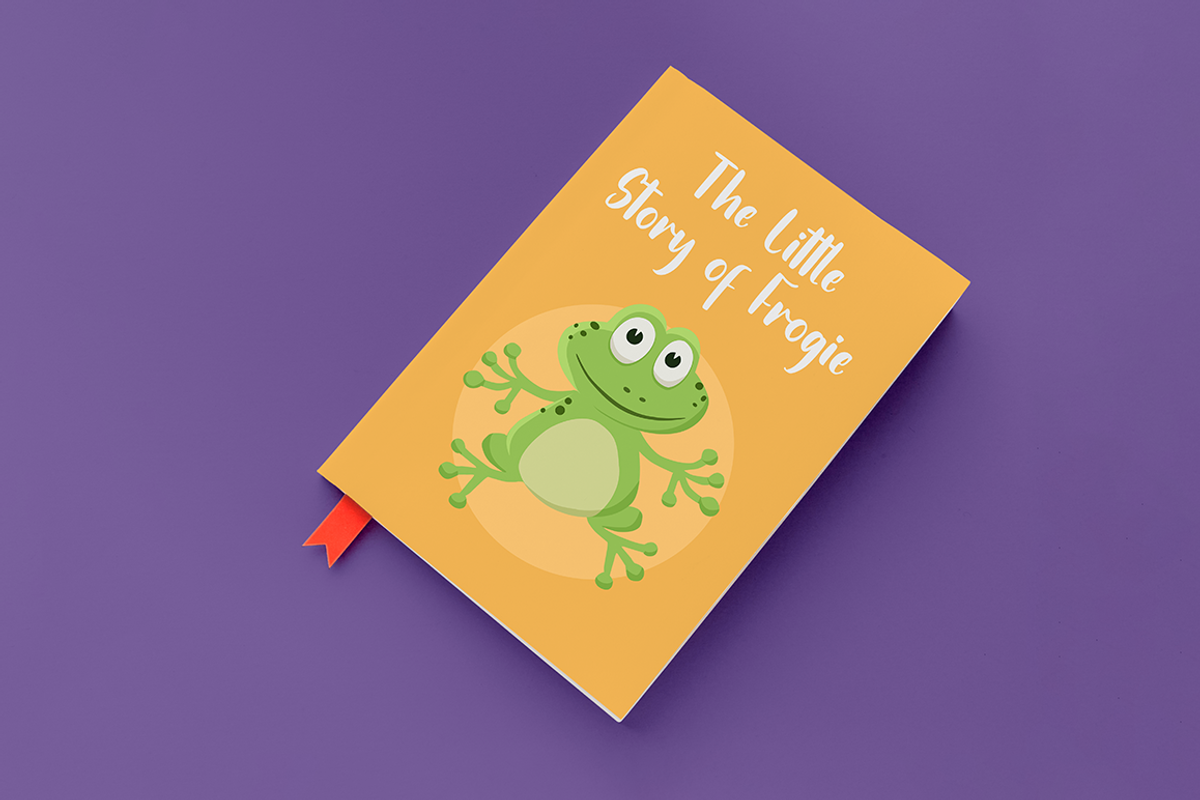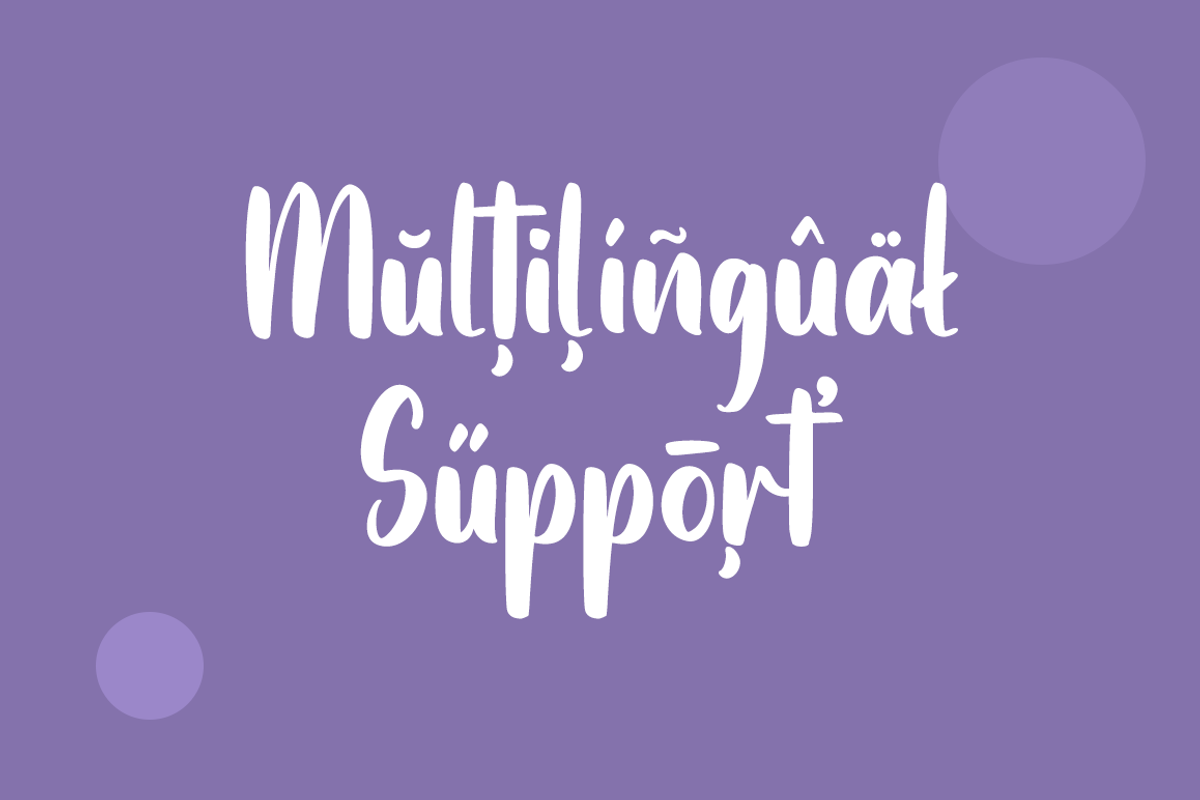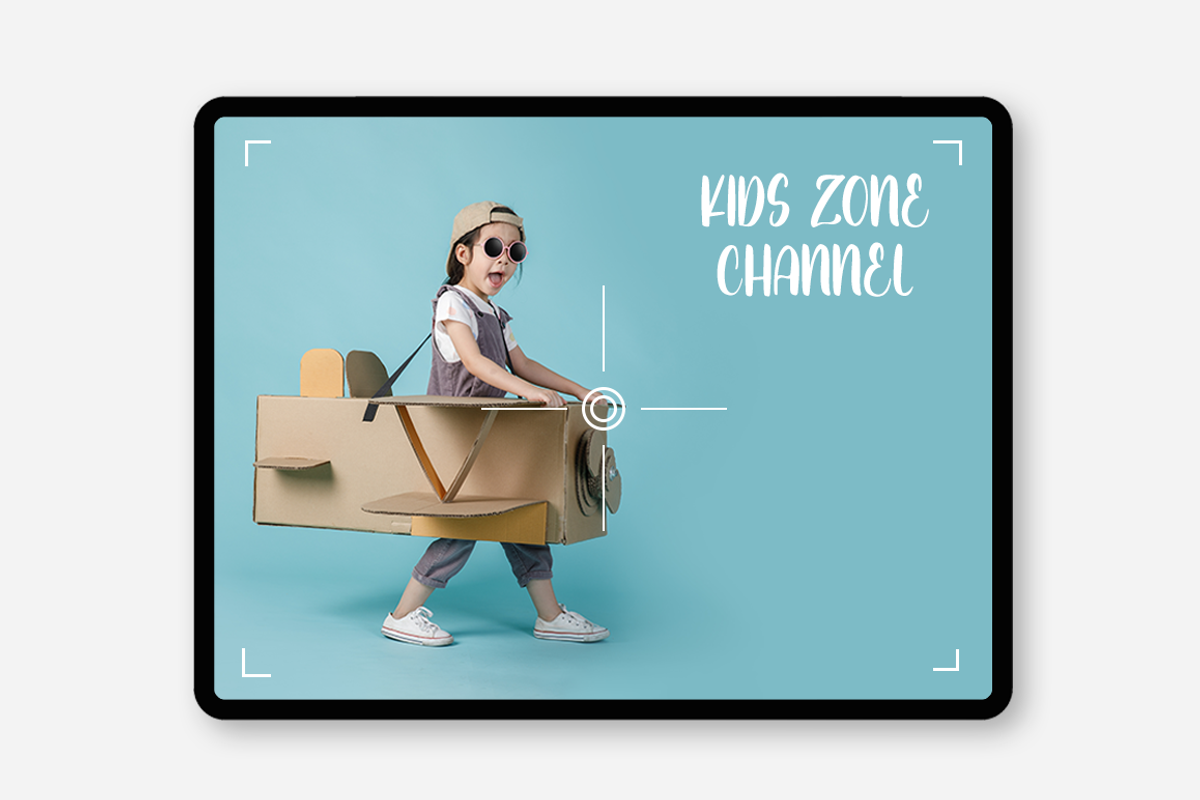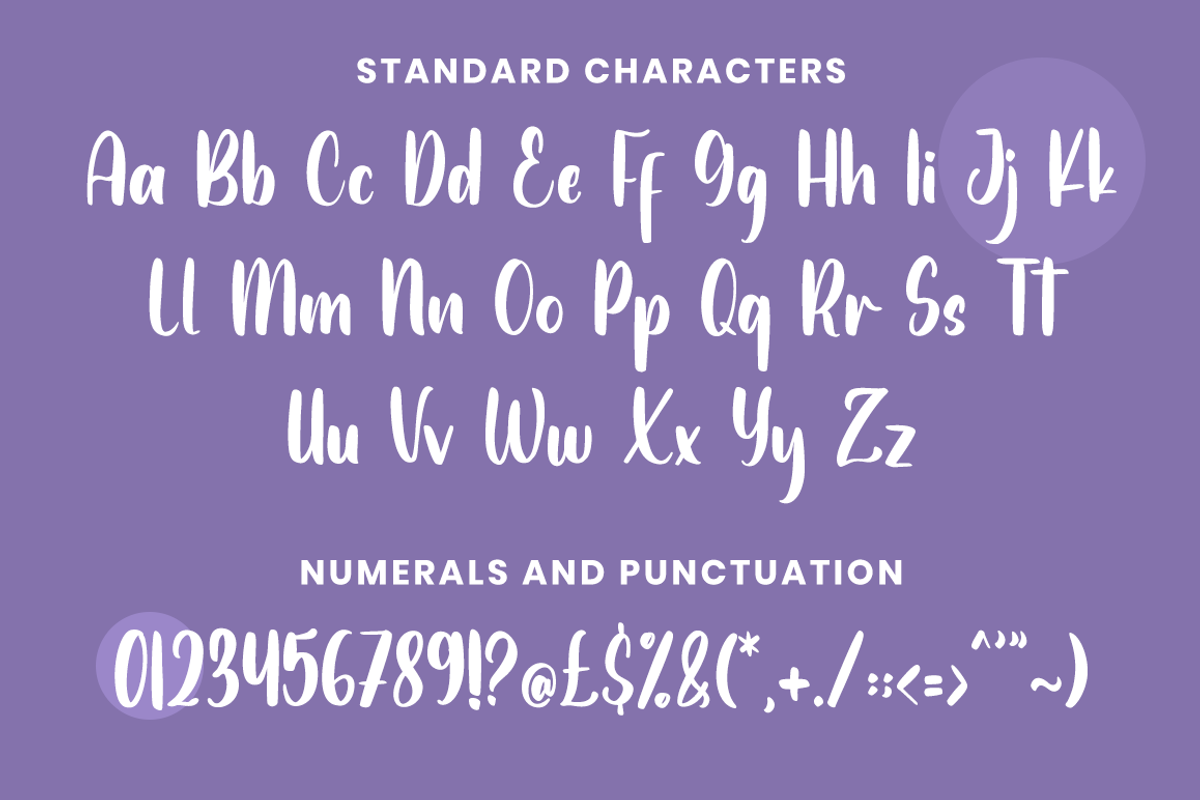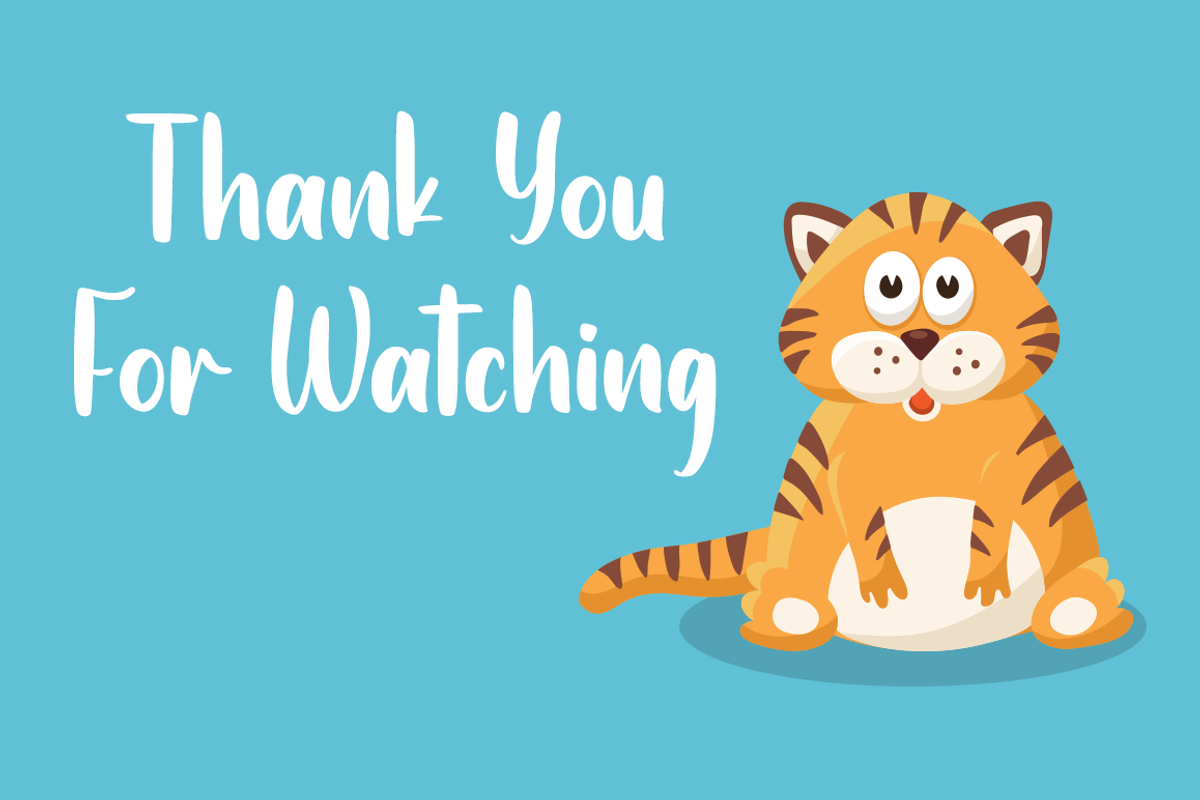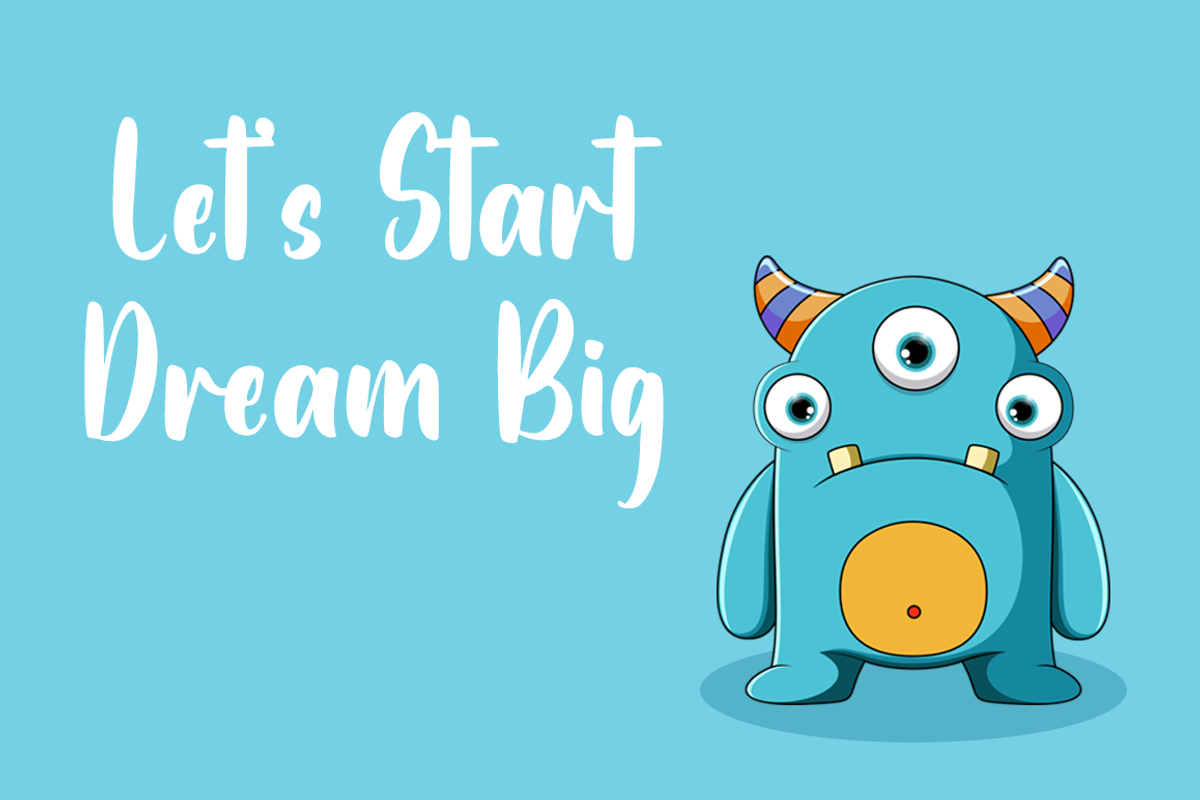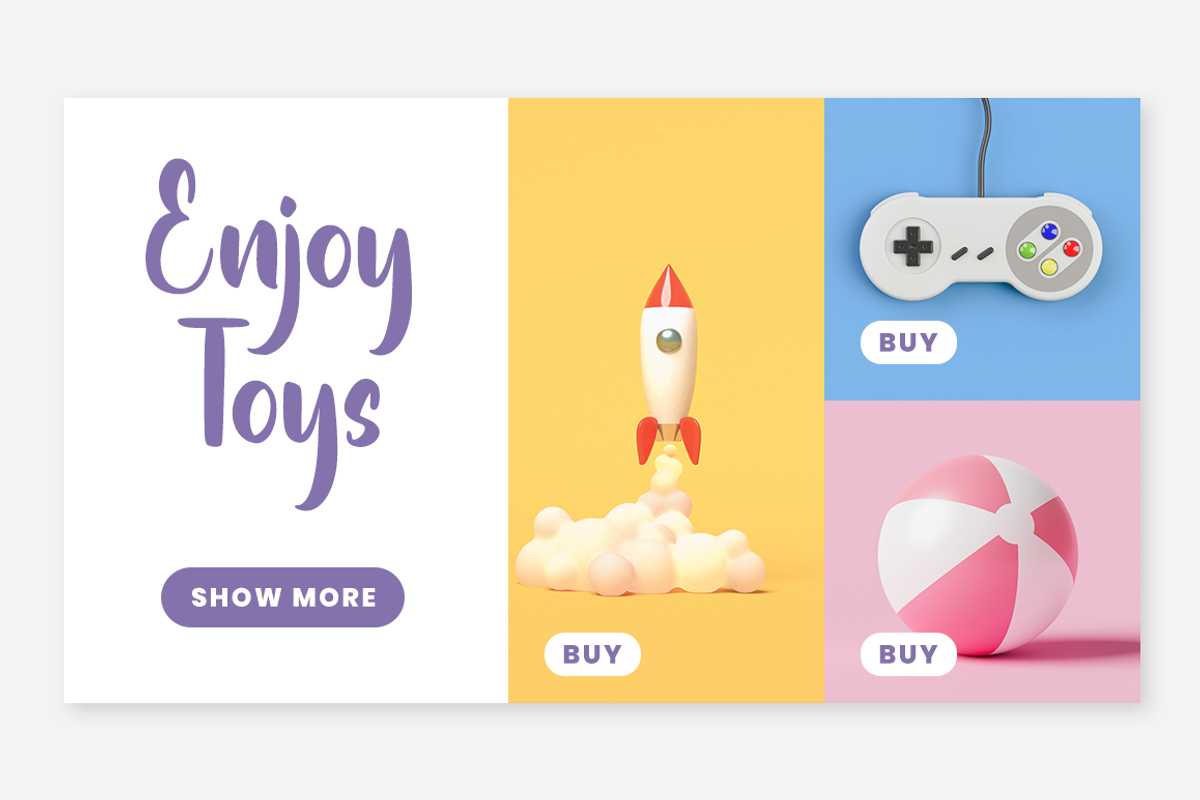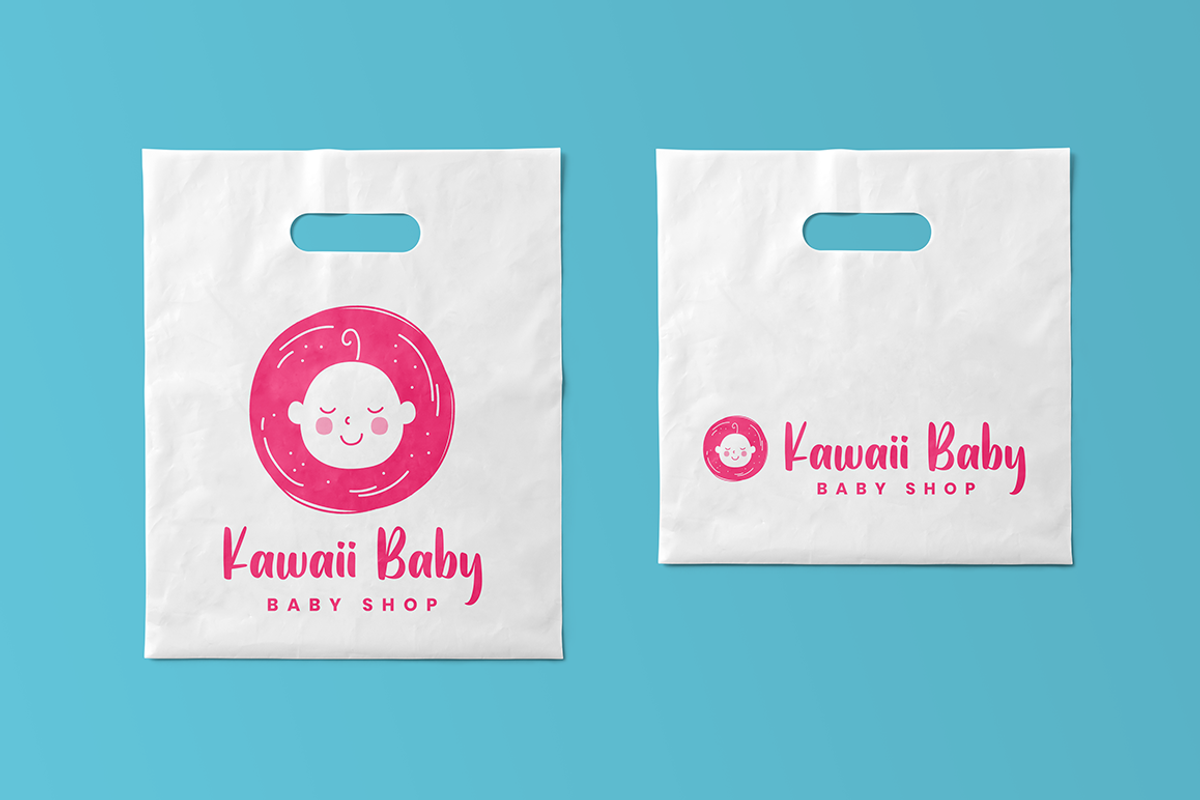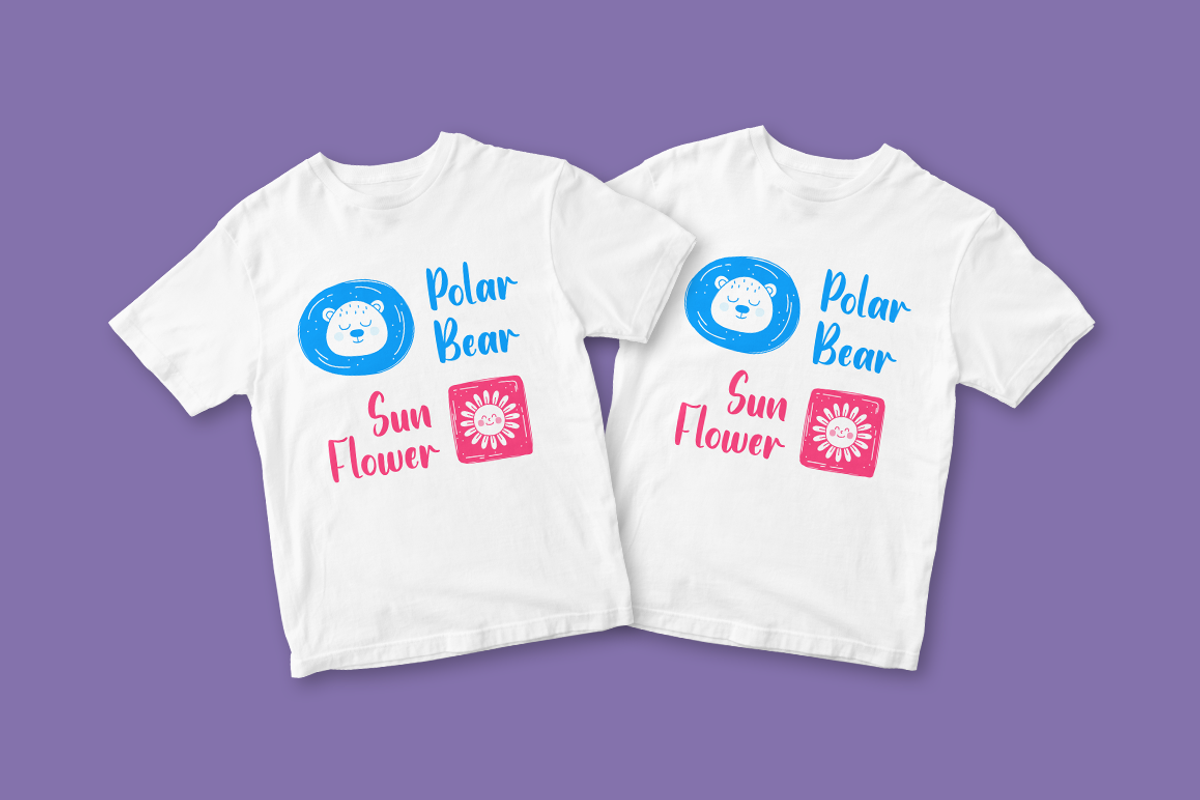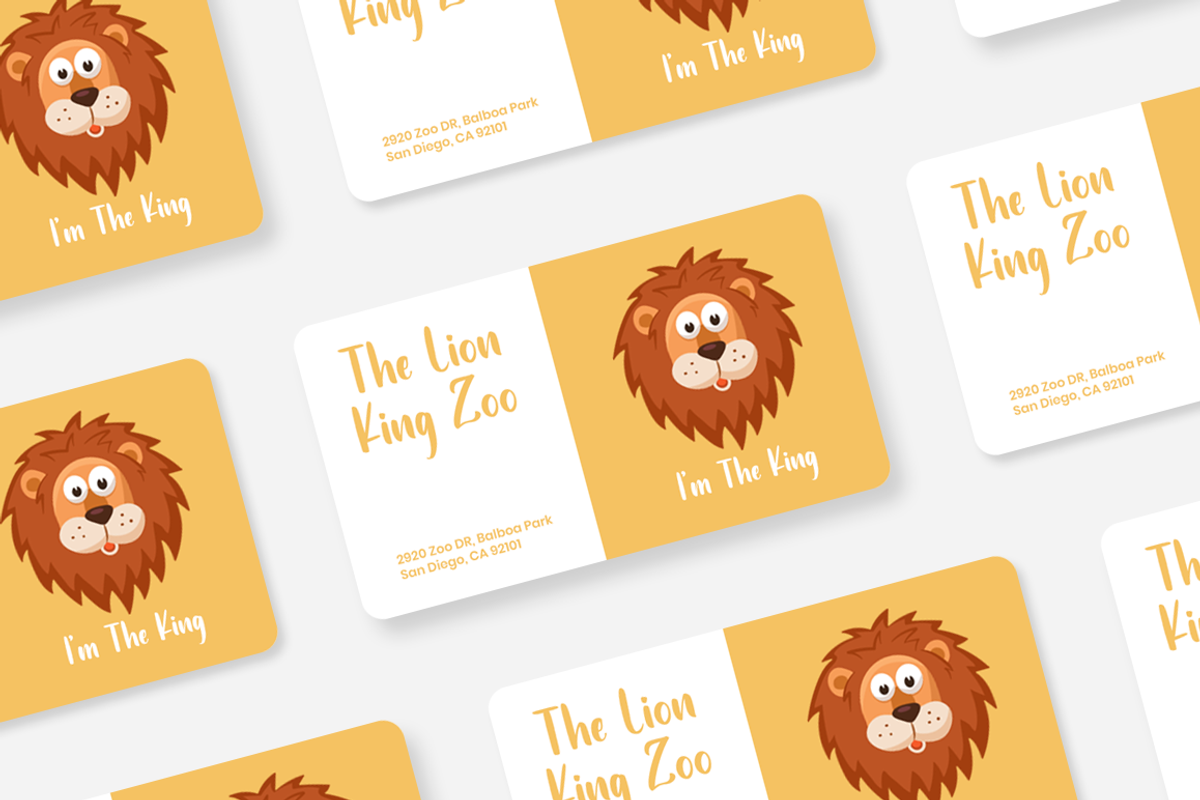
Little Purple Font
Little Purple is a cute and friendly handwritten font. It can be used for various creations related to kids, school, or pretty much anything that requires a jolly touch. Add it confidently to your projects, and you will love the results.